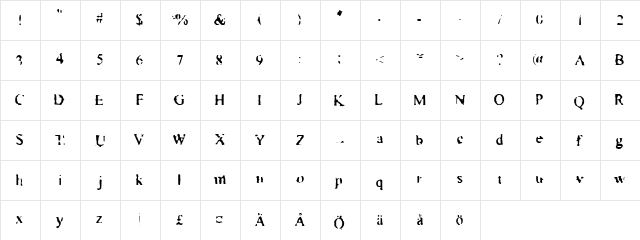
Times New Zoo-man Bull Gates..
Design Context for Times New Zoo-man Typeface
Times New Zoo-man offers clean, dependable letterforms without strong stylistic allegiance, making it a practical choice for designers who need flexibility.